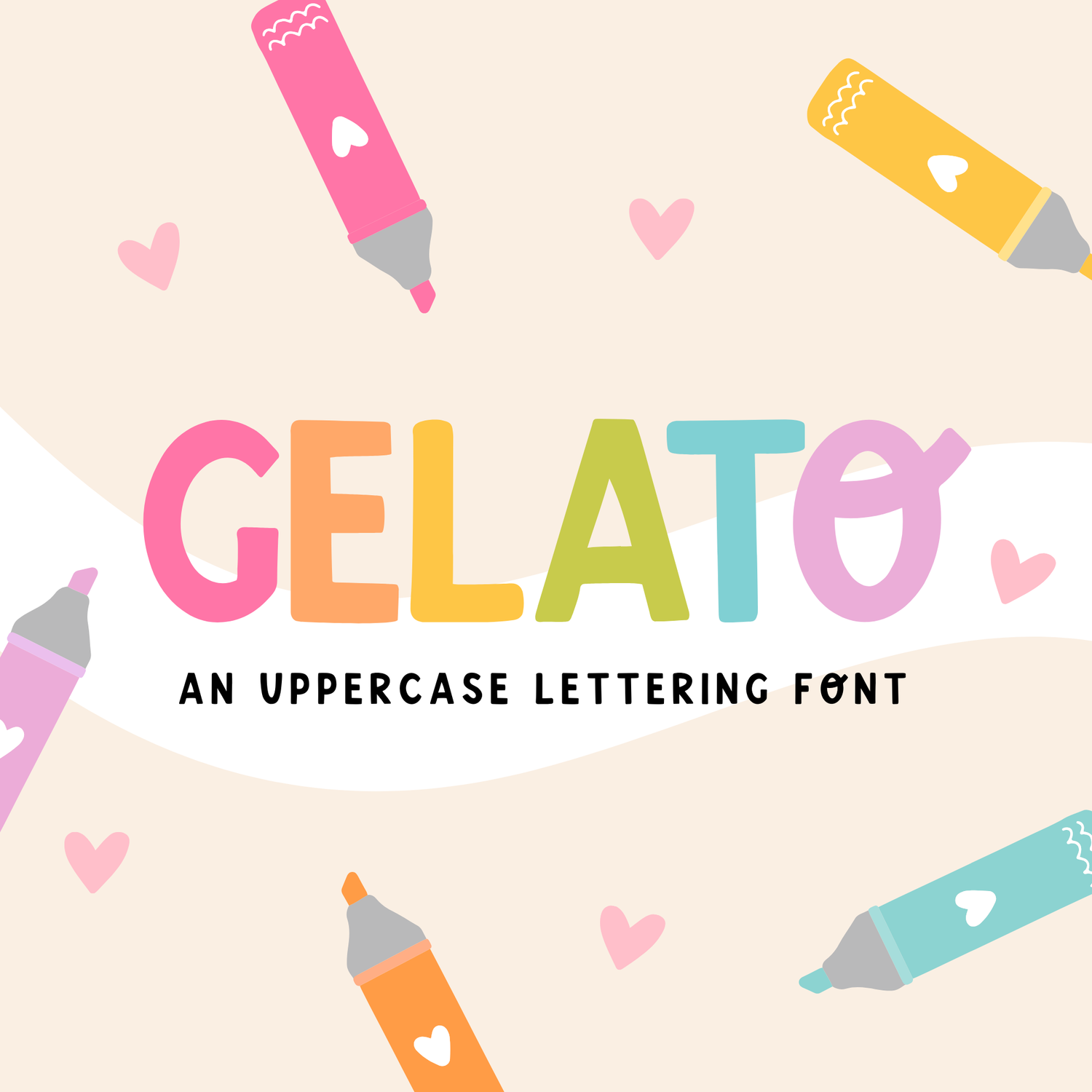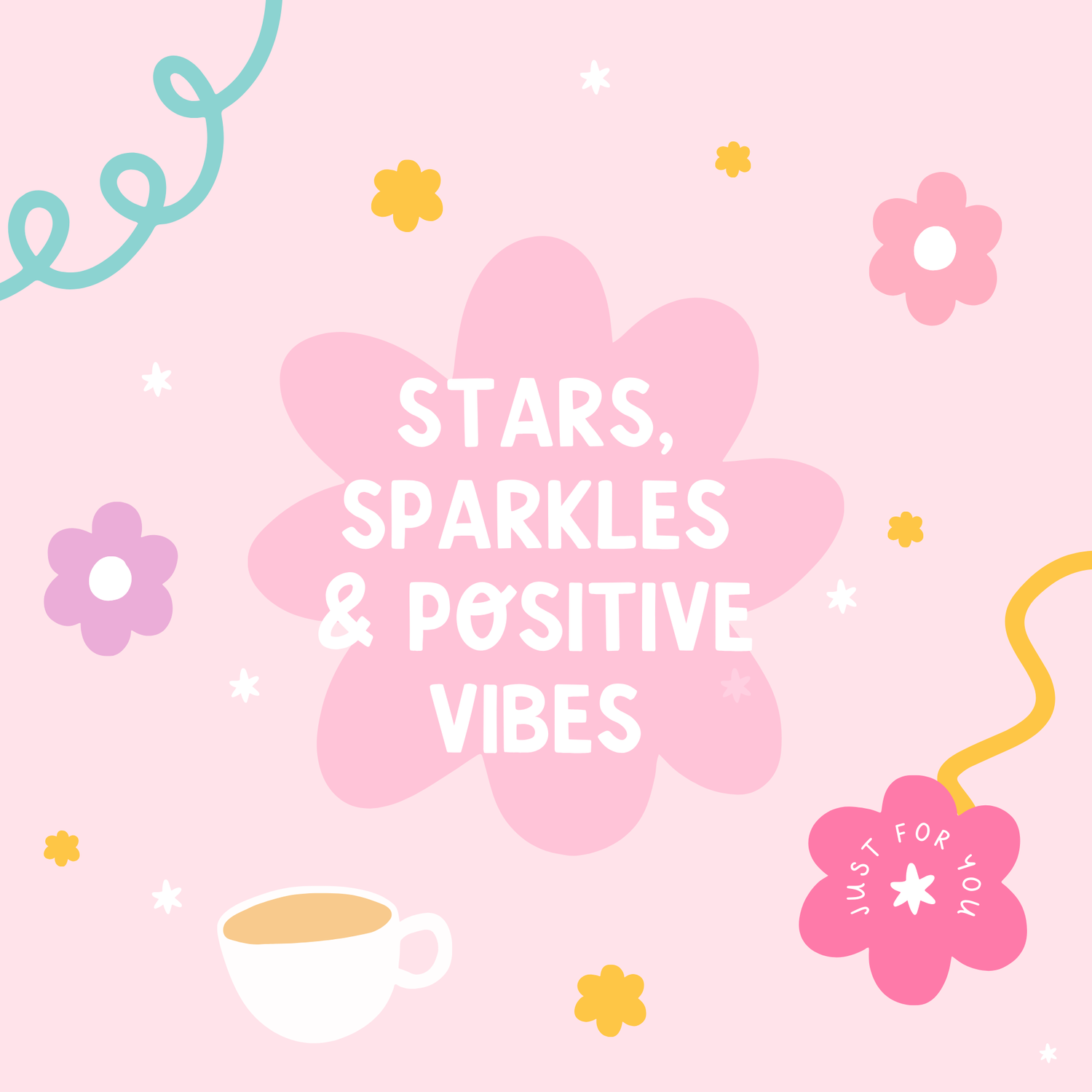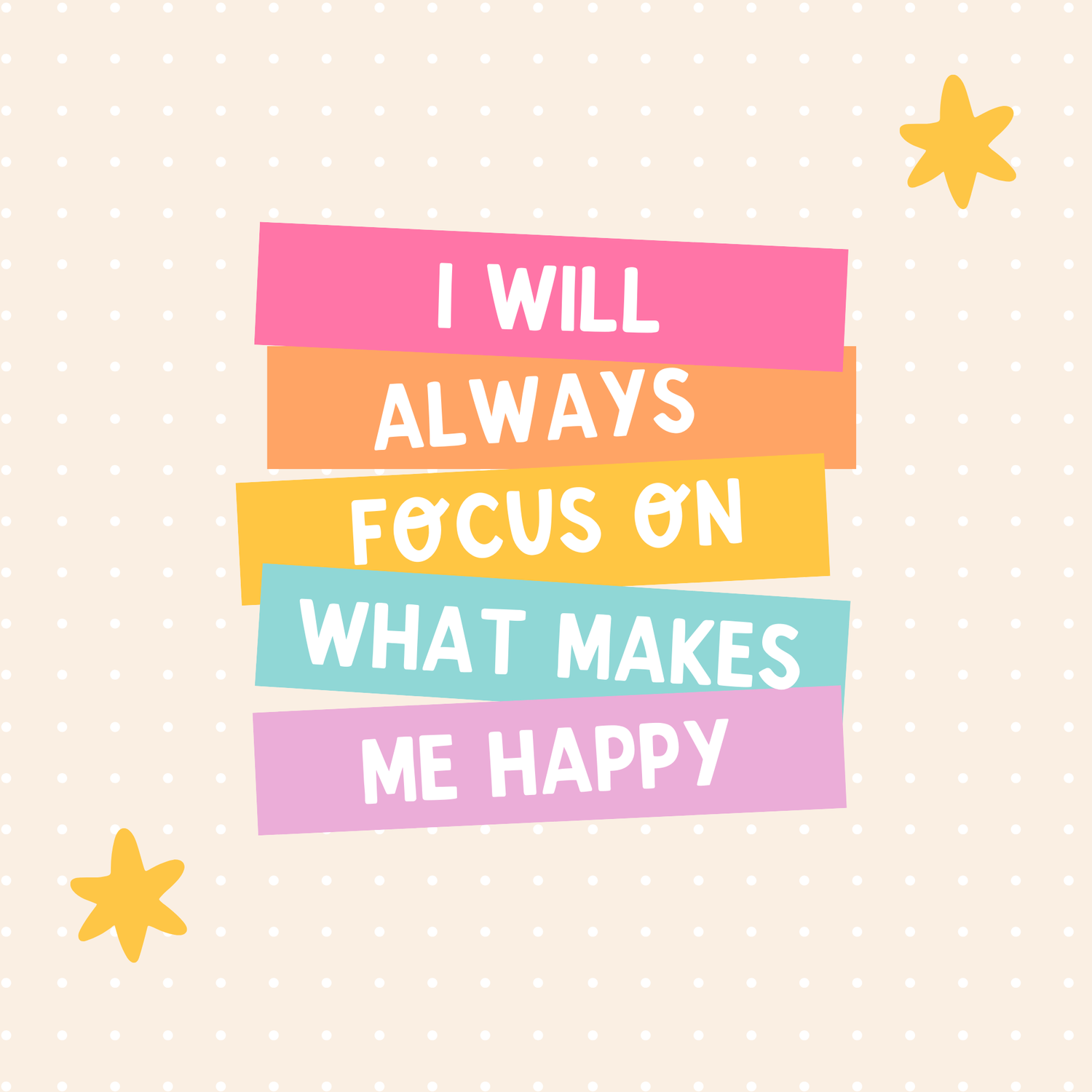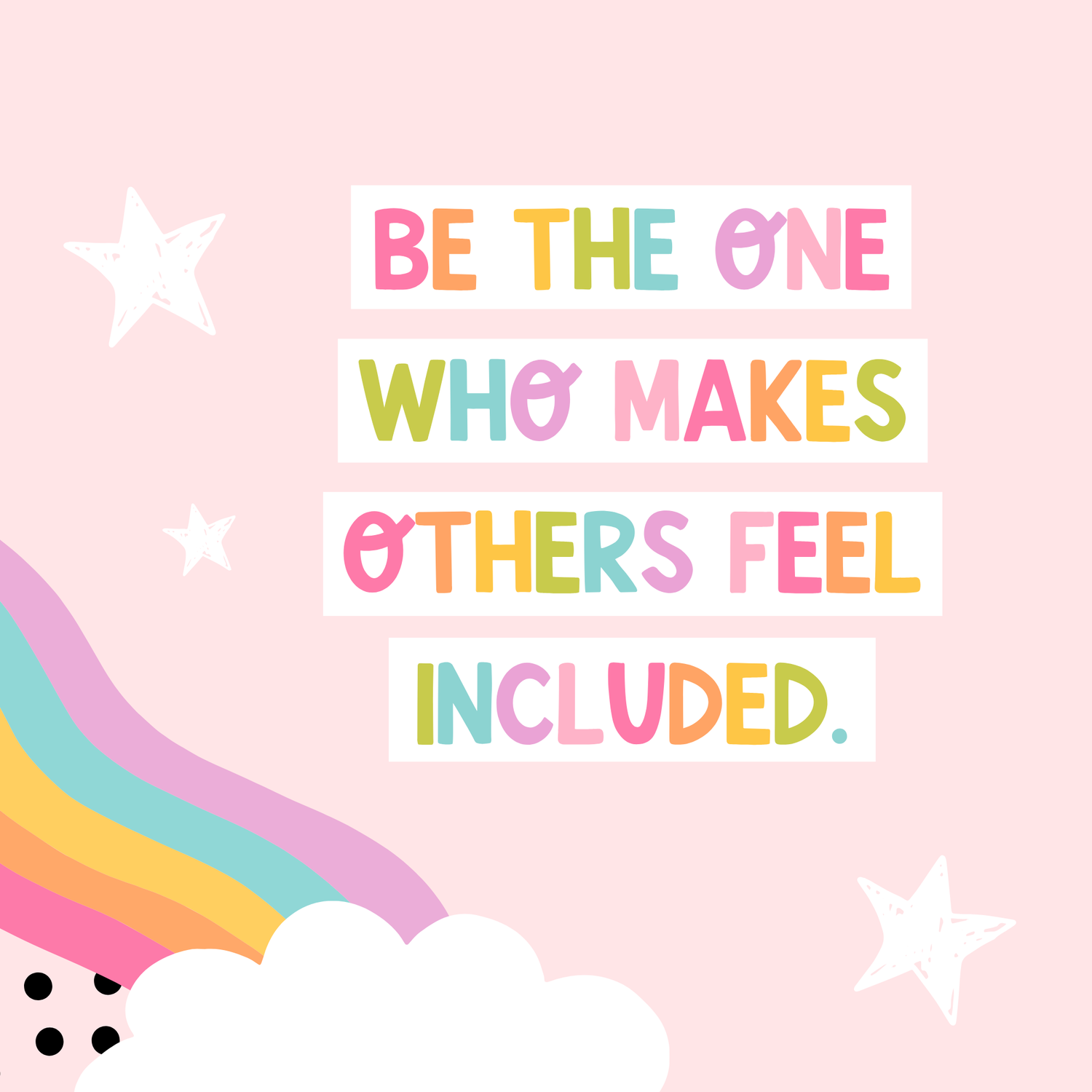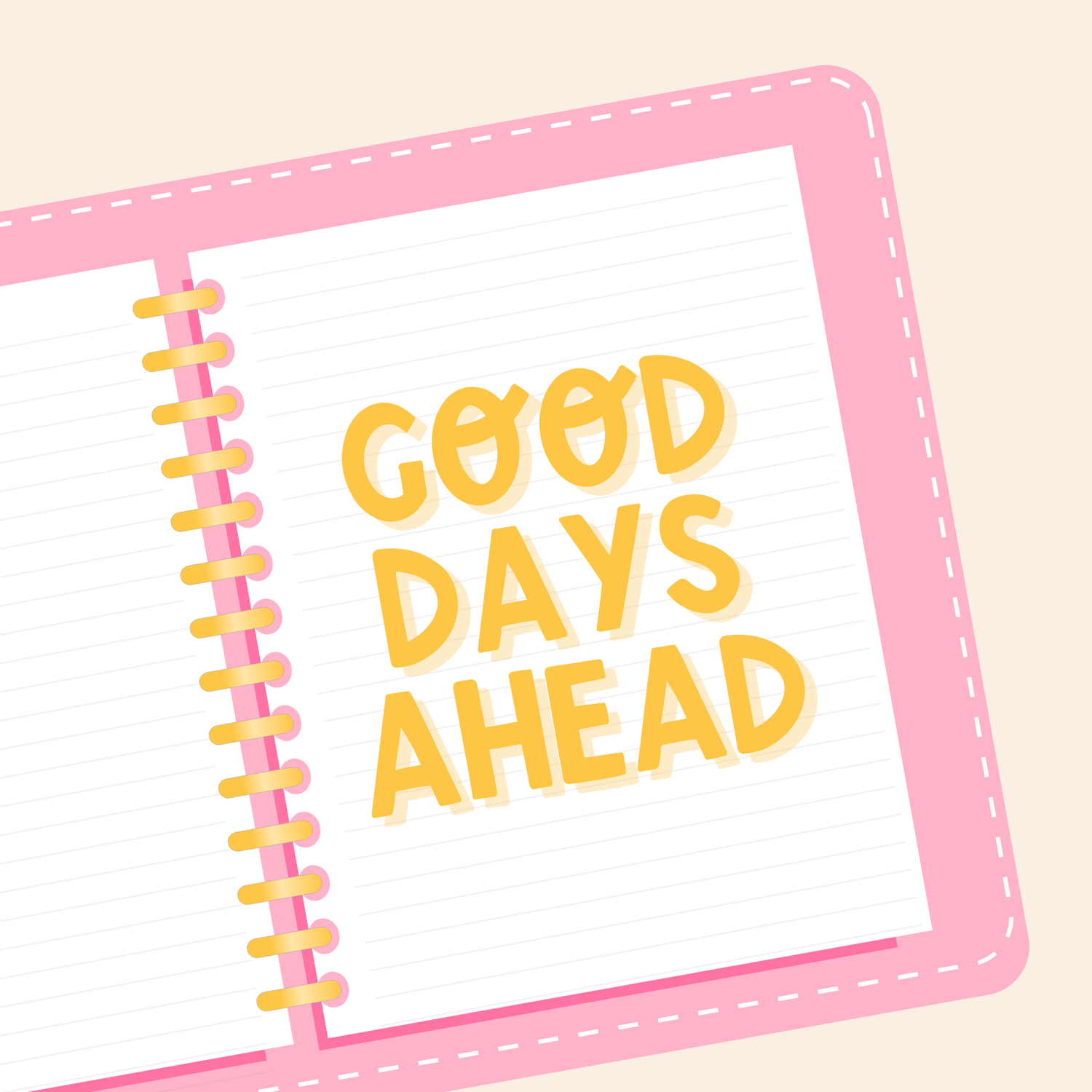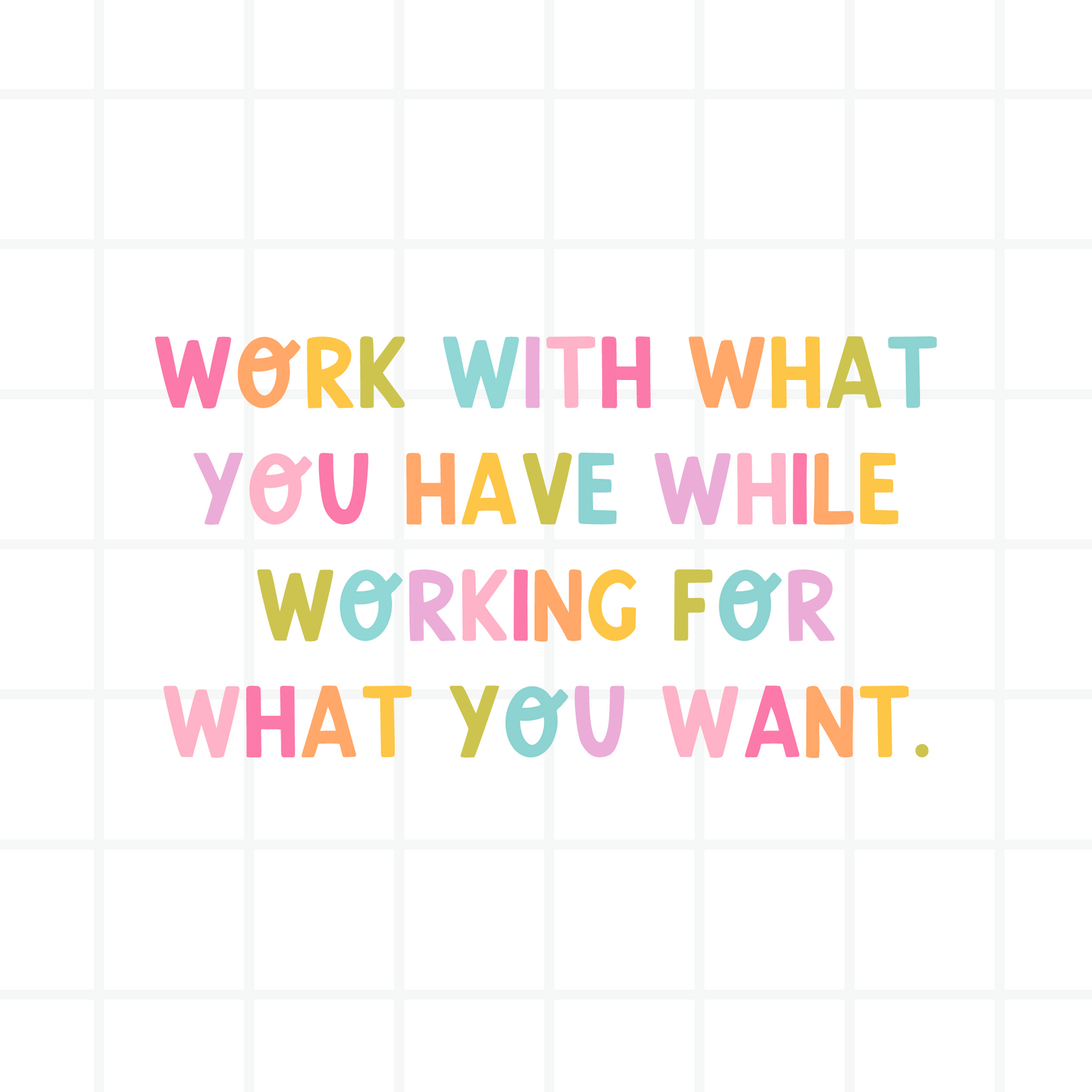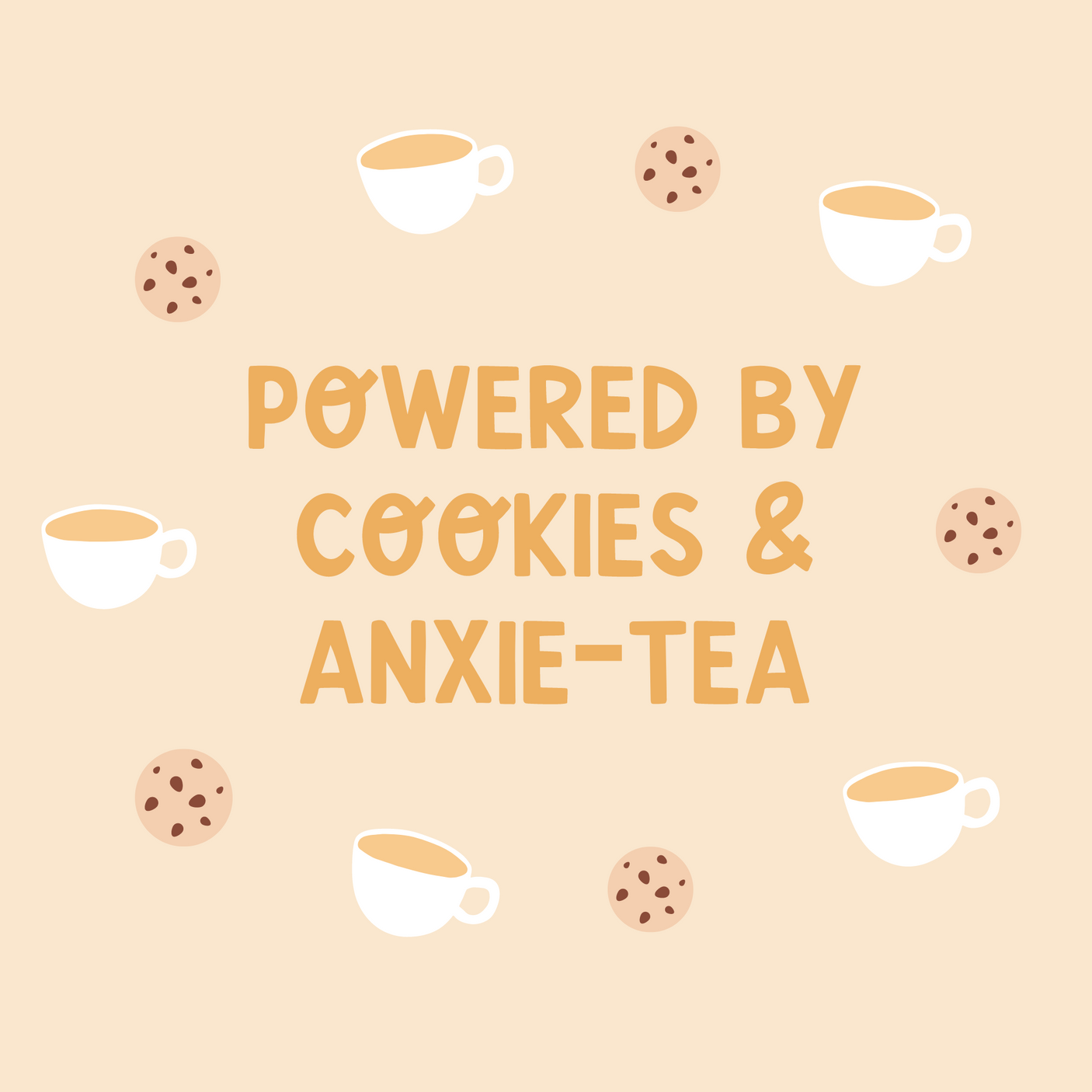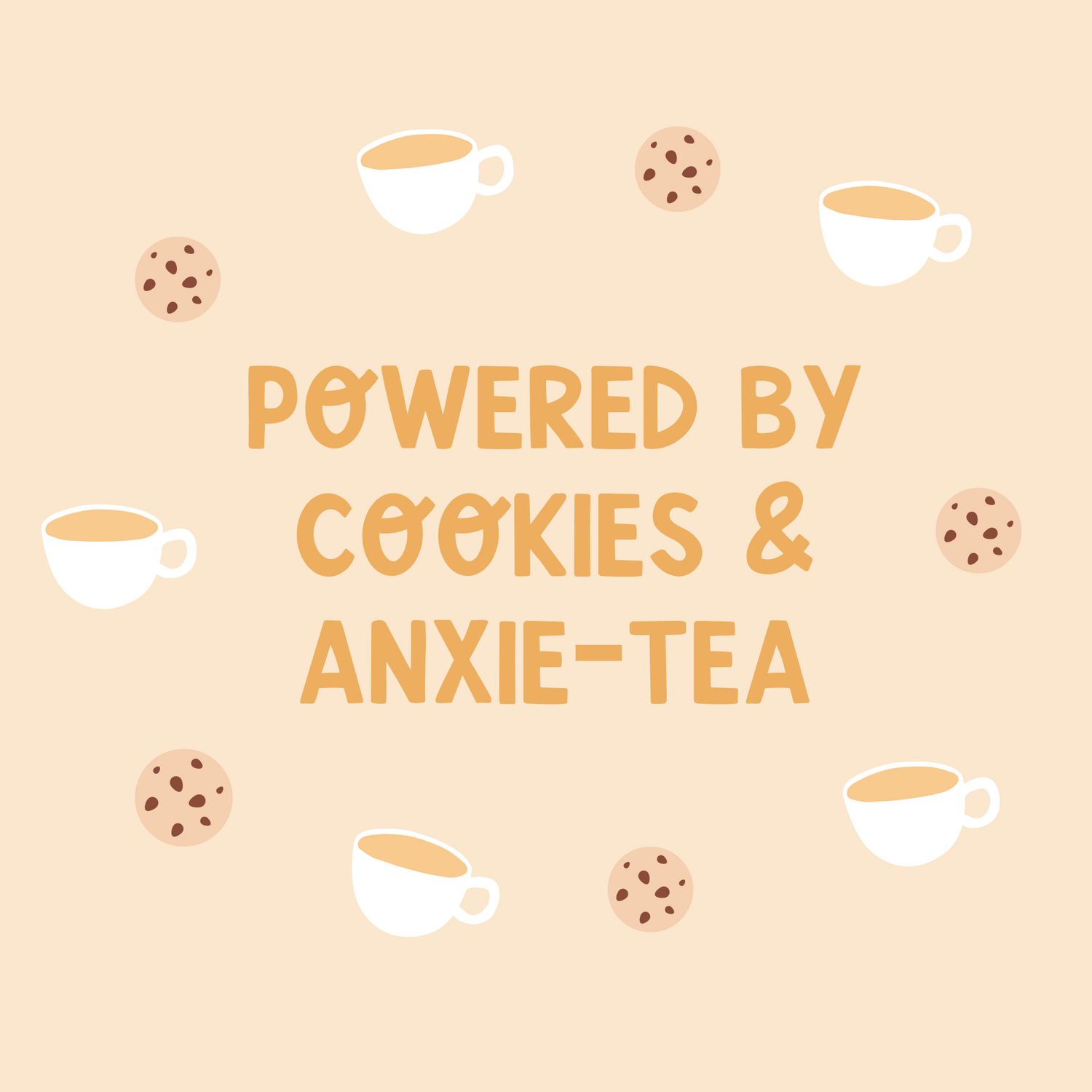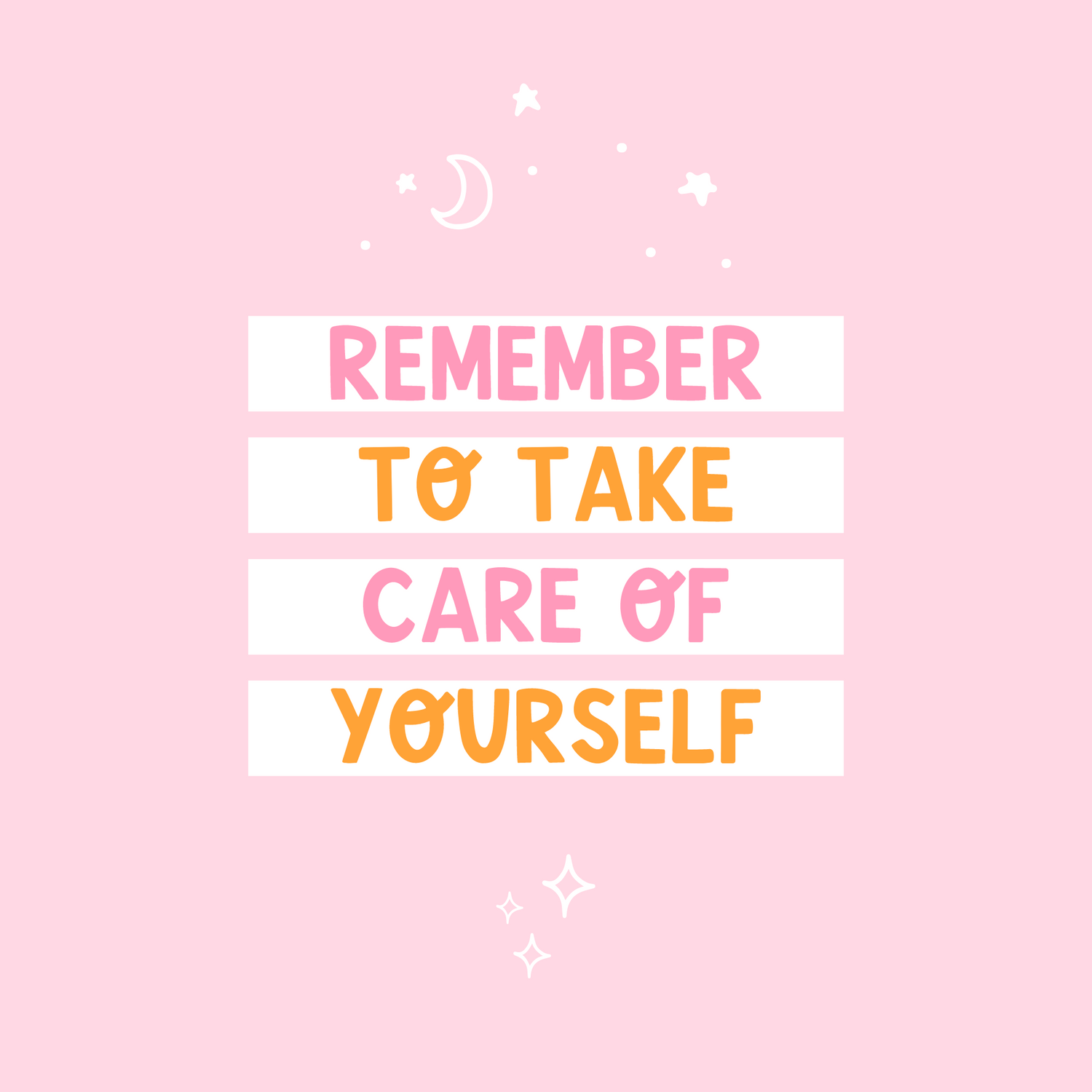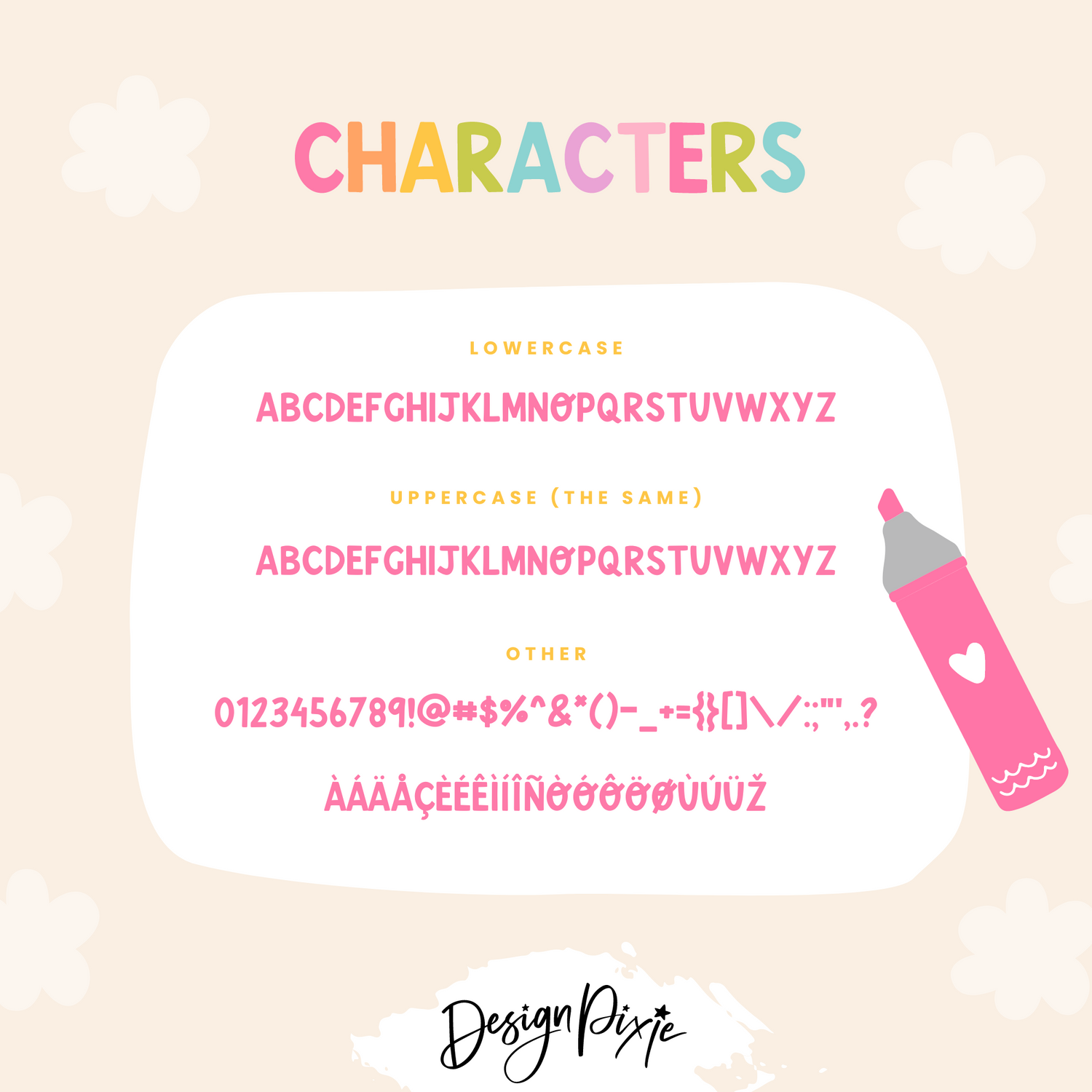
Gelato Font
Gelato Font is a fun and versatile highlighter-style font with a unique swirly 'O' that adds a playful touch to your designs.
This all-uppercase font is perfect for a range of creative projects, from invitations and logos to lettering quotes and Instagram posts. Its chalkboard-like charm shines in multi-colored designs, making it an ideal choice for eye-catching headings and standout text.